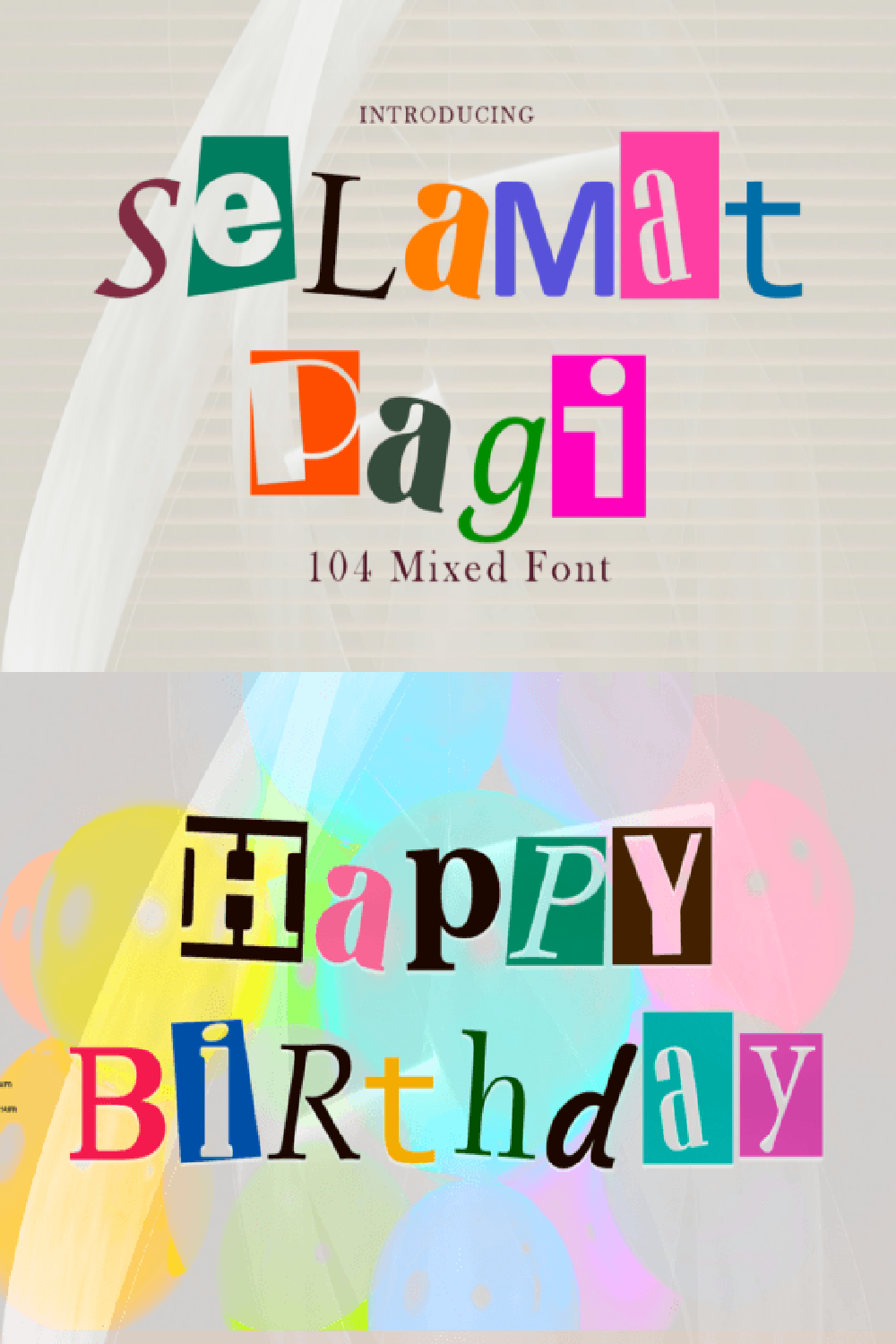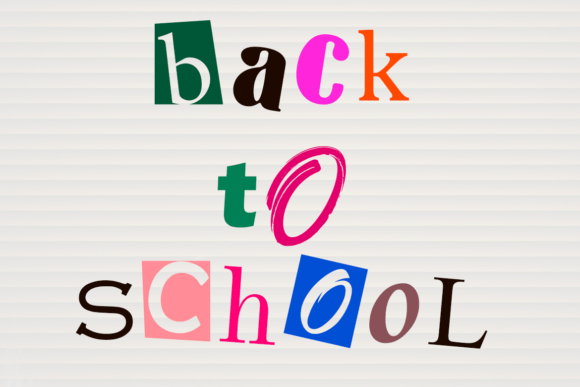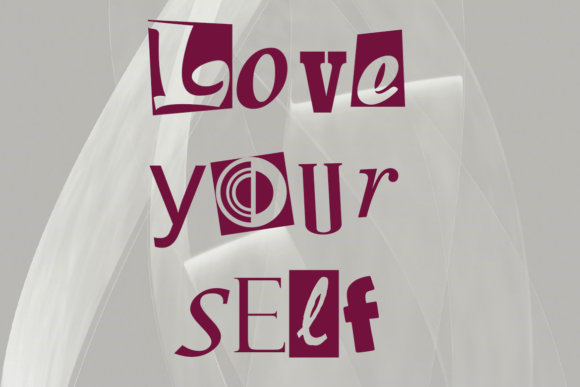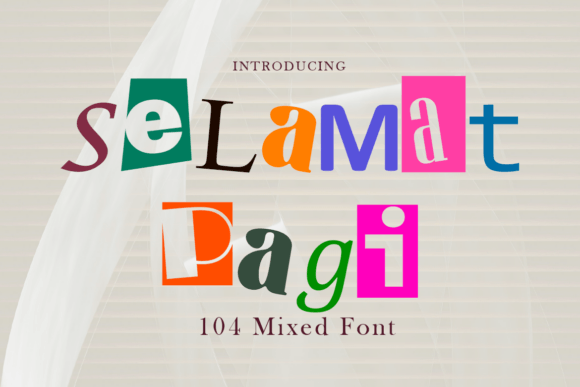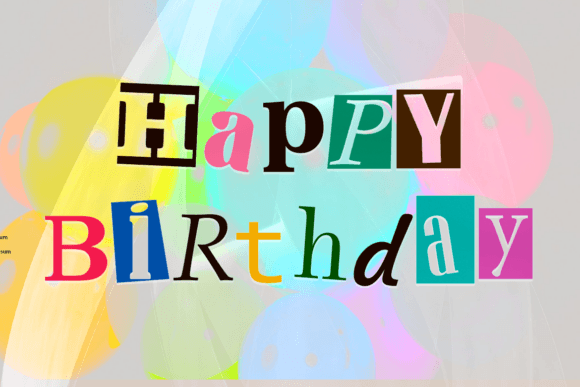
Selamat Pagi Font: 100+ Cheerful Display Fonts for Fun Designs & Crafts!
About the Selamat Pagi Font
Add a touch of class to your work with the Selamat Pagi Font, a truly exceptional typeface. Selamat Pagi is a font mix of over 100 cheerful and fun display fonts, giving you plenty of choices. This font is lively, cheerful, and fun. Selamat Pagi is a great font for a variety of fun-themed designs, such as t-shirts, displays, crafts, stickers, quotes, mugs, sublimation, and more.
Selamat Pagi Font Usage Examples